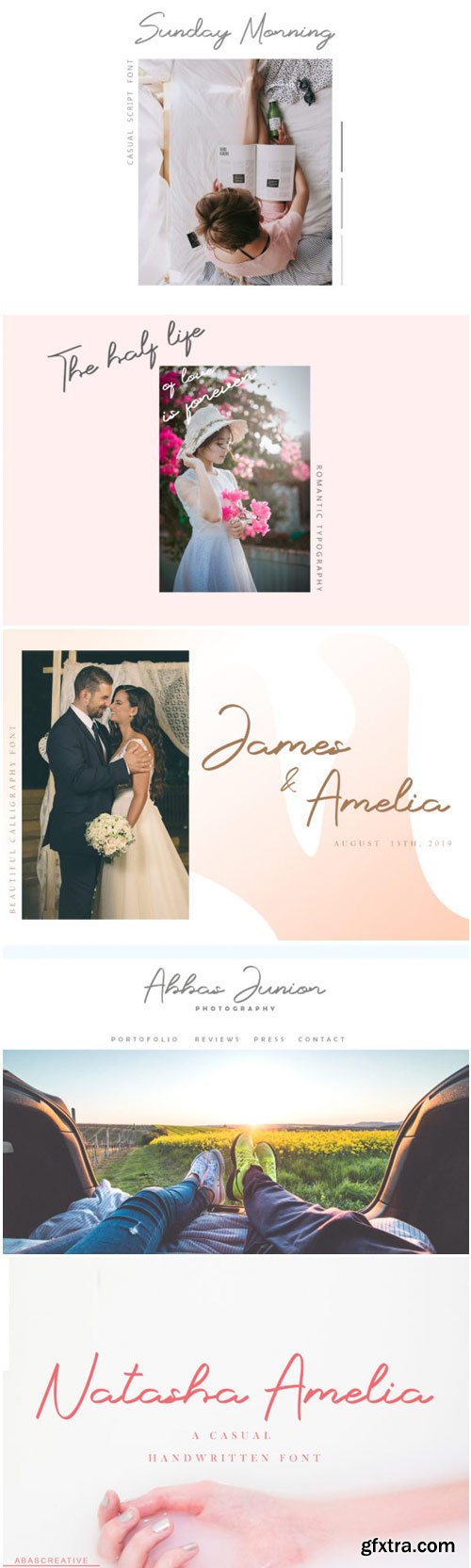
Natasha Amelia Font
Natasha Amelia is a beautiful calligraphy font, with a unique soft and delicate feeling. It will add a romantic touch to any design project.